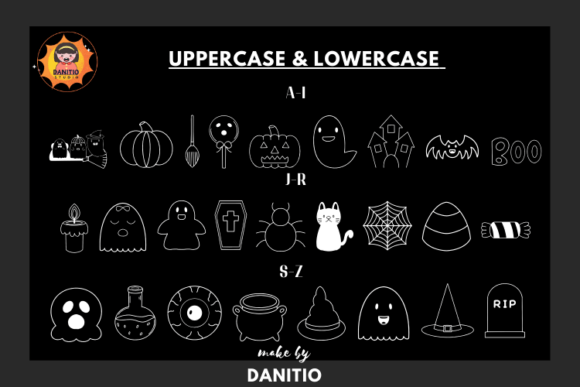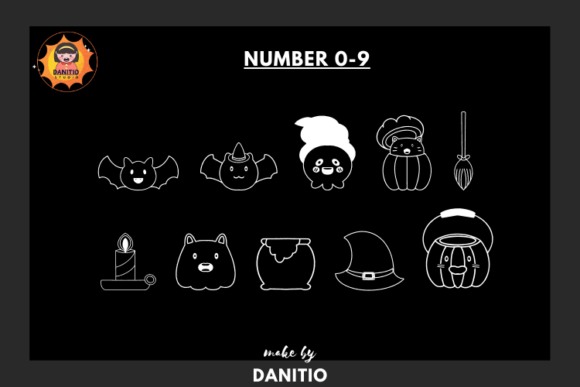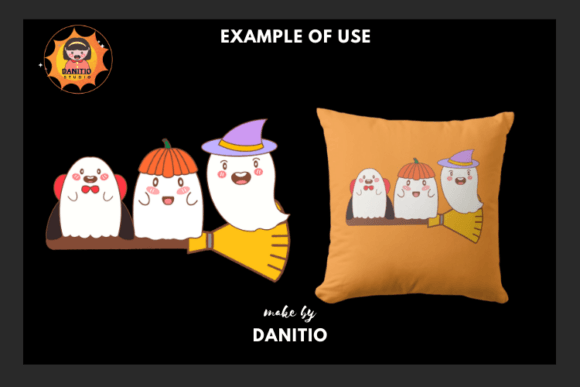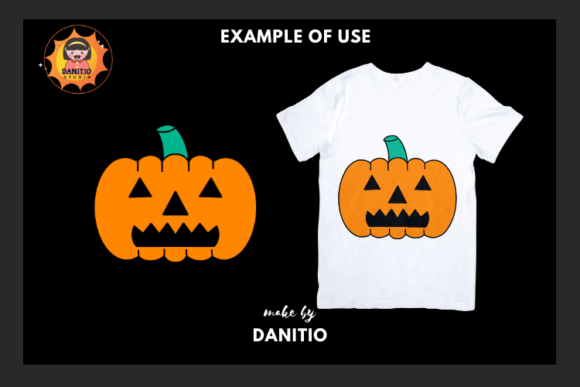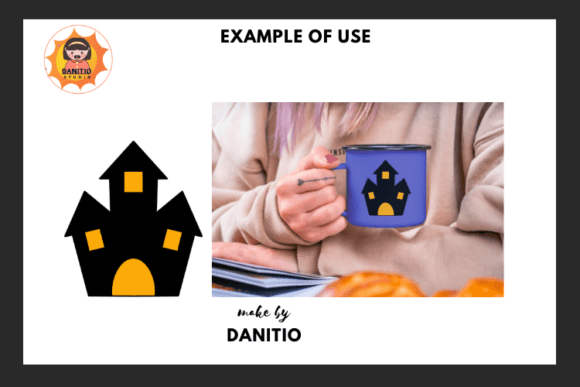
Happy Halloween Font: The Ultimate Dingbats Font for Spooky Designs
Are you looking for a font that will add a touch of spooky fun to your designs? Look no further than the Happy Halloween Font! This adorable dingbats font is perfect for Halloween-themed projects, featuring a wide range of ghosts, decorations, and other seasonal elements in various styles.
What is Happy Halloween Font?
Happy Halloween Font is a unique dingbats font designed specifically for Halloween. Unlike traditional fonts, dingbats fonts feature images and symbols instead of letters, making them perfect for adding visual interest to your designs. This font is packed with a variety of Halloween-themed images, including ghosts, bats, pumpkins, and more.
Key Features of Happy Halloween Font
- Adorable designs: The Happy Halloween Font features a range of cute and spooky designs that are sure to add a touch of Halloween magic to your projects.
- Variety of styles: With multiple styles to choose from, you can mix and match designs to create a unique look that suits your project.
- Perfect for Halloween projects: Whether you’re creating invitations, decorations, or other Halloween-themed projects, this font is sure to add a spooky touch.
How to Use Happy Halloween Font
- Halloween invitations: Add a spooky touch to your invitations with this adorable font.
- Decorations: Use this font to create festive decorations, such as banners, garlands, and more.
- Social media graphics: Add a touch of Halloween fun to your social media graphics with this font.
- Craft projects: Use this font to add a personal touch to your craft projects, such as scrapbooking, card making, and more.
Benefits of Using Happy Halloween Font
There are many benefits to using the Happy Halloween Font in your designs. Some of the top benefits include:
- Increased creativity: With a wide range of designs to choose from, you’re sure to find the perfect image to add a touch of Halloween fun to your project.
- Time-saving: This font saves you time and effort by providing a wide range of pre-made designs.
- Professional-looking results: With its high-quality designs, this font is sure to give your projects a professional look.
Tips for Getting the Most Out of Happy Halloween Font
To get the most out of the Happy Halloween Font, try these tips:
- Experiment with different styles: Mix and match different designs to create a unique look that suits your project.
- Combine with other fonts: Pair this font with other fonts to create a unique and eye-catching design.
- Use it in combination with other design elements: Add this font to your design along with other elements, such as images and shapes, to create a visually appealing project.
If you’re looking for a font that will add a touch of spooky fun to your designs, look no further than the Happy Halloween Font. With its wide range of adorable designs, variety of styles, and ease of use, this font is perfect for designers and crafters of all levels. Download the Happy Halloween Font today and add a touch of Halloween magic to your projects!